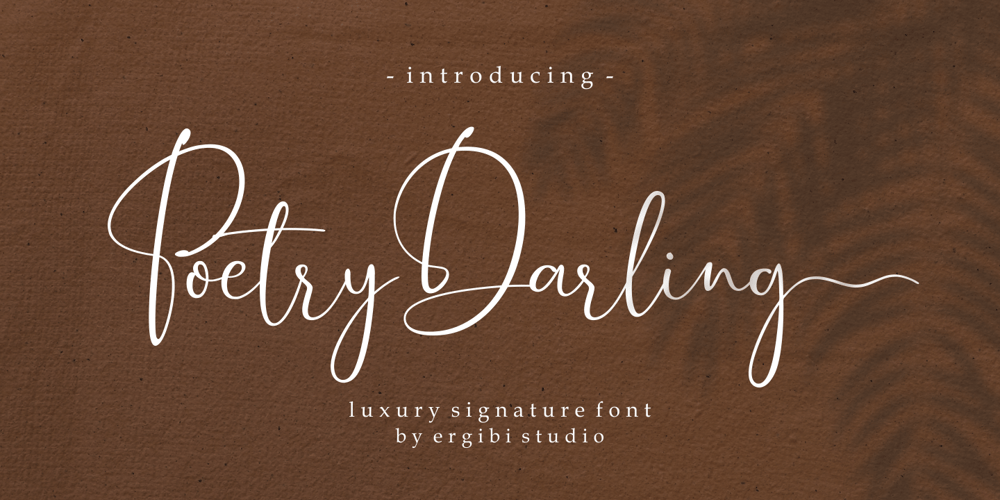
Poetry Darling
Poetry Darling font
Poetry Darling Font Family was designed by Riyadh Rahman and published by Ergibi Studio. Poetry Darling contains 2 styles and family package options. Poetry Darling is a beautiful and classy signature font presentation from Ergibi Studio. This font includes uppercase, lowercase letters, numbers, punctuation, symbols, binders and multilingual support. Poetry Darling is perfect for branding, photography, invitations, quotes, watermarks, advertisements, product designs, social media posts, stationery, labels, and more!